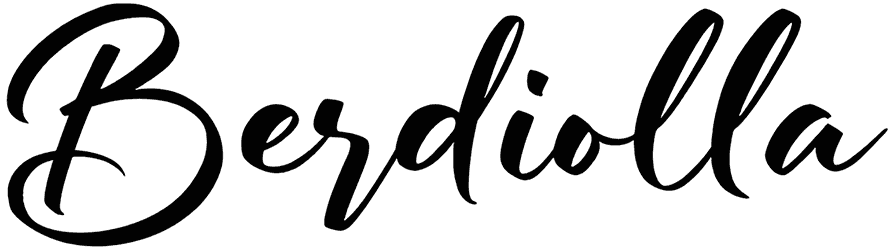
Berdiolla Font
Berdiolla is a beautiful and rustic font with a neat and rounded style that still attracts many designers despite the lack of numbers.
This wedding font is a bridge between personal and digital writings that can be very suitable for your printed and non-printed designs. This handwritten font’s unexaggerated and natural twists make it versatile and can bring you the best results in love letters, photos, and tattoos.